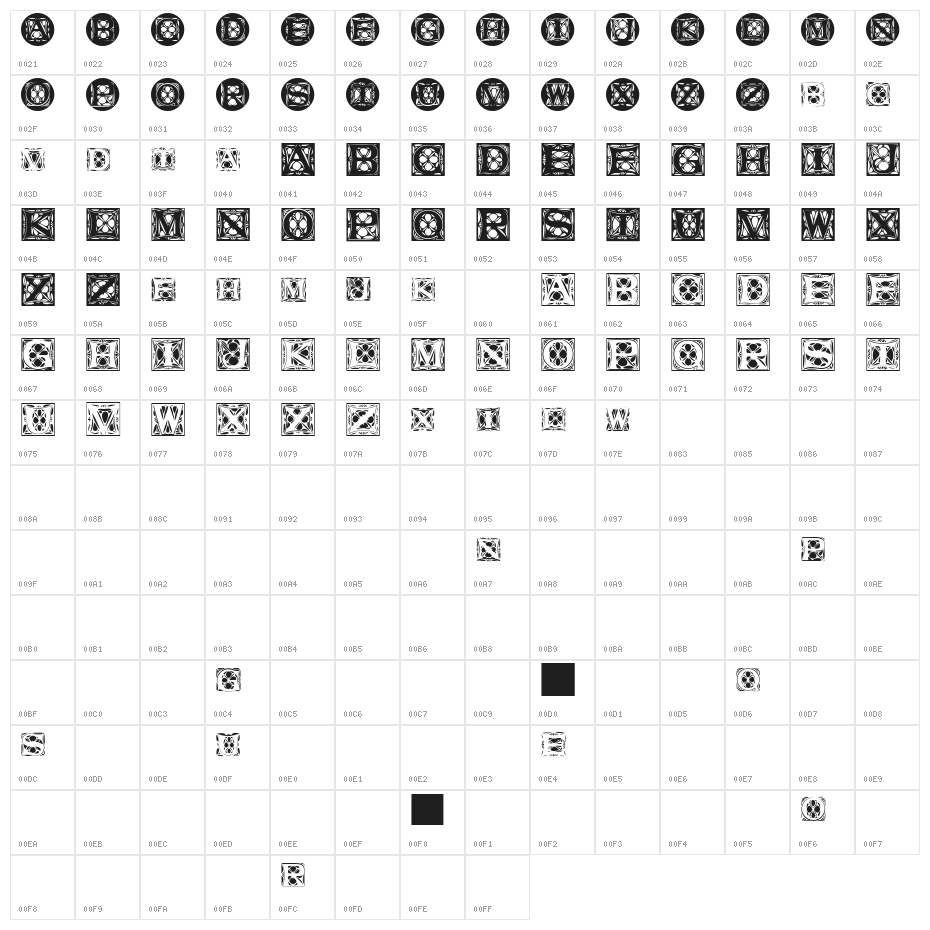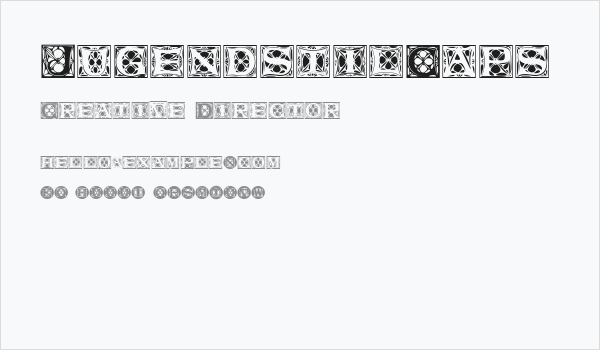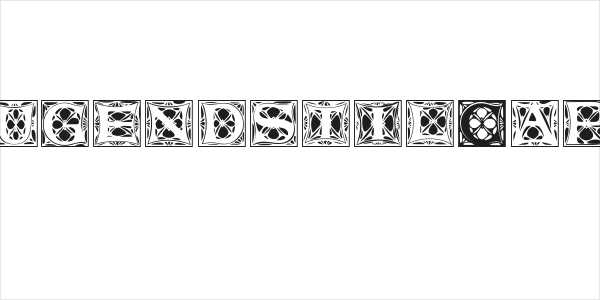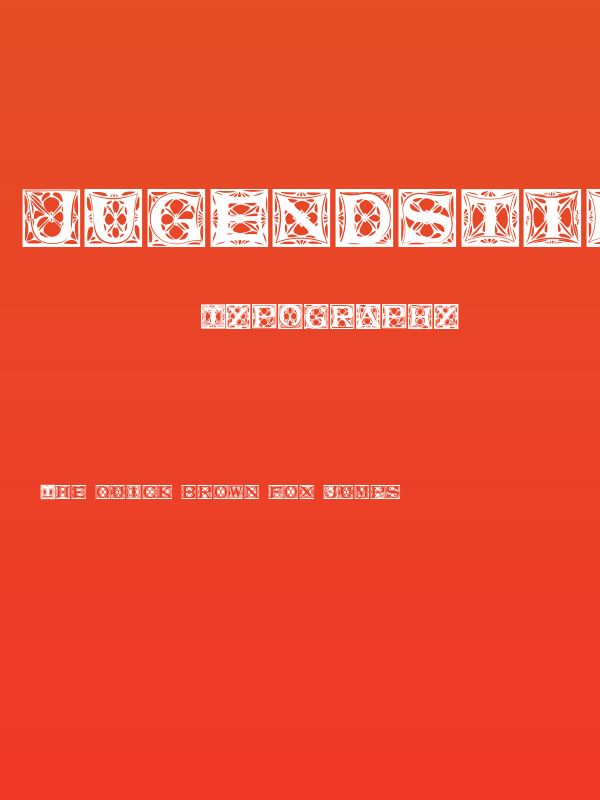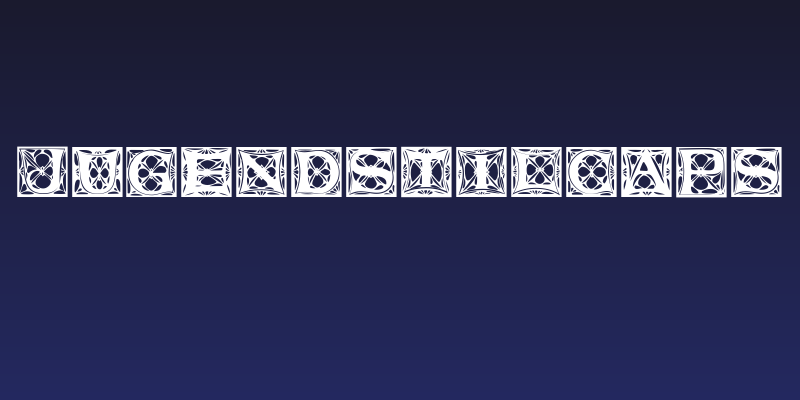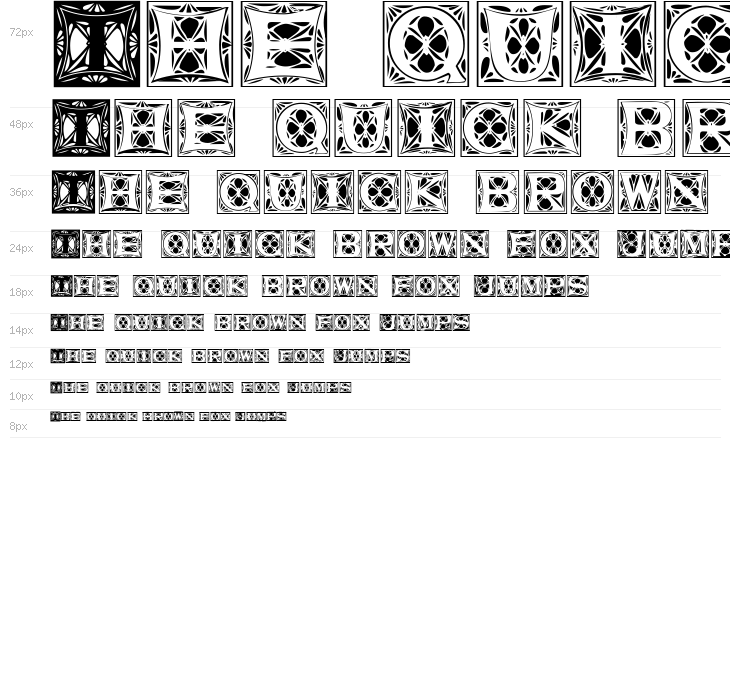
JugendstilCaps Font
✎ Art Nouveau
| 分类 | Art Nouveau |
| 整体风格 | Vintage, Decorative |
| 使用场景 | Headlines, Logos, Decorative elements |
| 推荐项目 | Ideal for use in vintage-themed posters, artistic book covers, decorative invitations, and branding projects that require a touch of elegance and historical flair. |